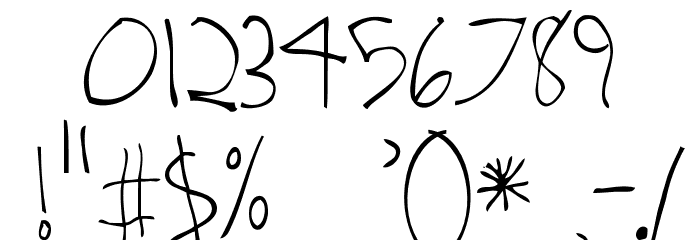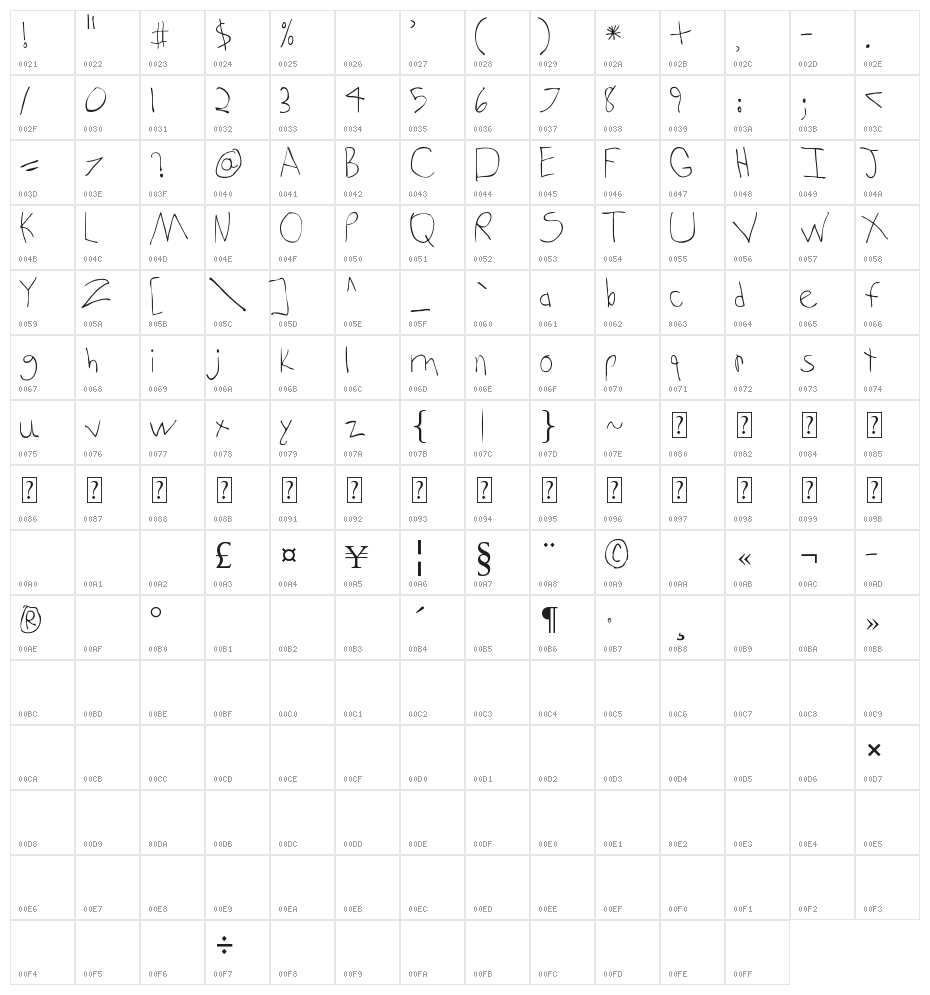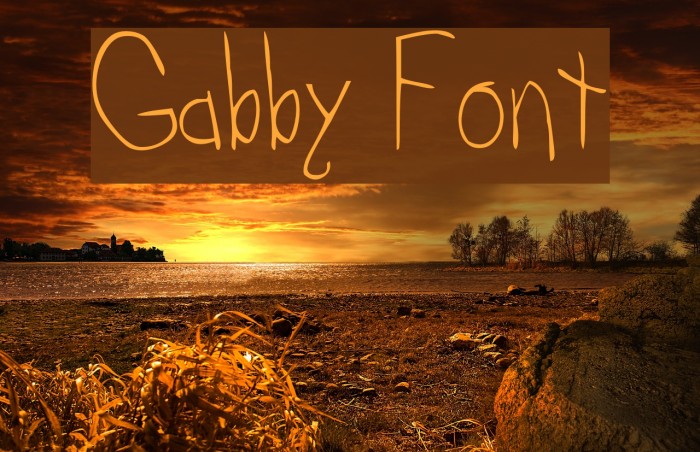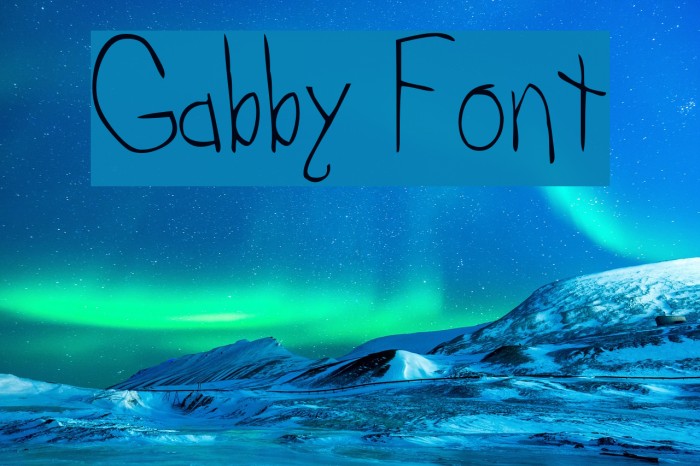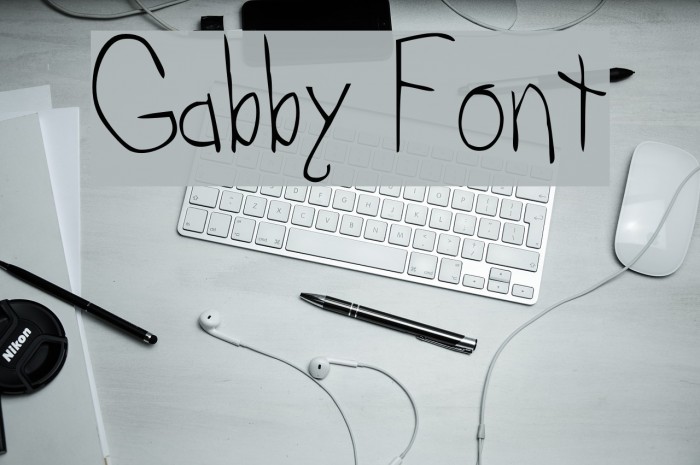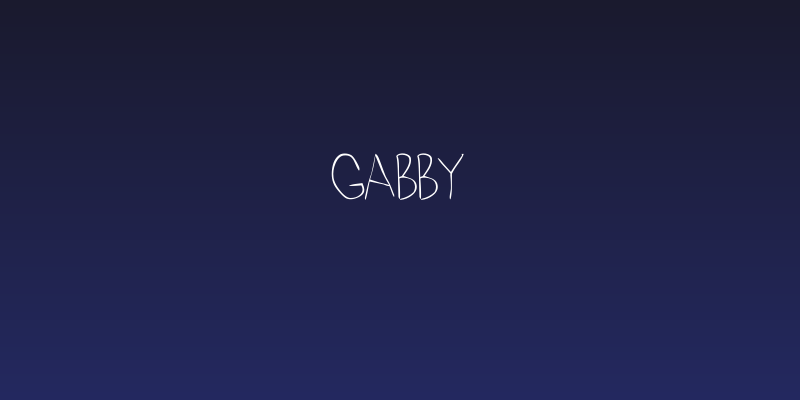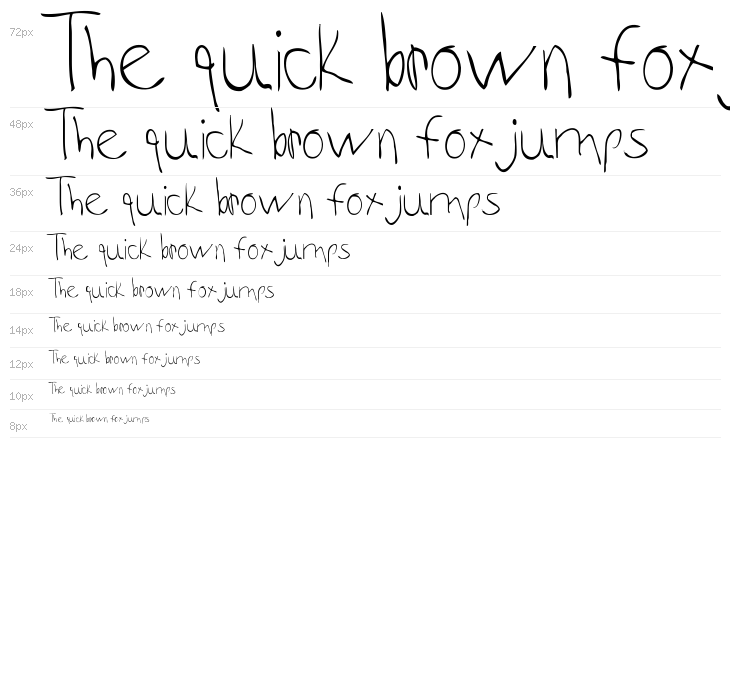
Gabby Font
Gabby Description
This font features a playful and casual handwritten style, characterized by its irregular and slightly whimsical letterforms. The strokes are uneven, giving it a natural, hand-drawn appearance. The uppercase letters are tall and narrow, while the lowercase letters maintain a consistent flow with rounded edges. The numbers and special characters follow the same playful aesthetic, making the font suitable for informal and creative projects. Its unique style adds a personal touch, making it ideal for designs that require a friendly and approachable feel.
| Proposed Projects | Ideal for greeting cards, children's books, casual branding, and creative posters. |